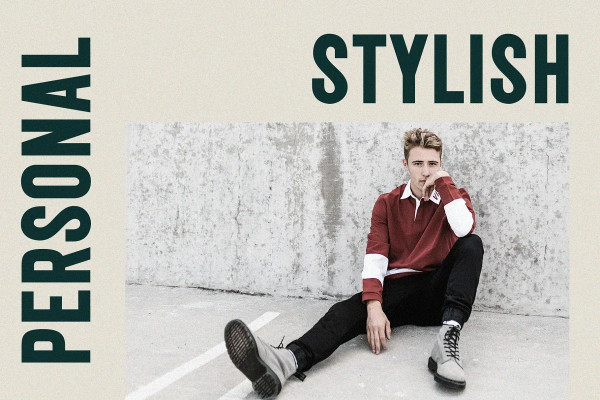
Signer Font
Signer Font, a beautiful series of letters is encapsulated in this ‘Signer’ font. Neat lettering is perfect for writing needs that are modern and pleasing to the eye. There is a classic impression but still looks elegant when used for writing.